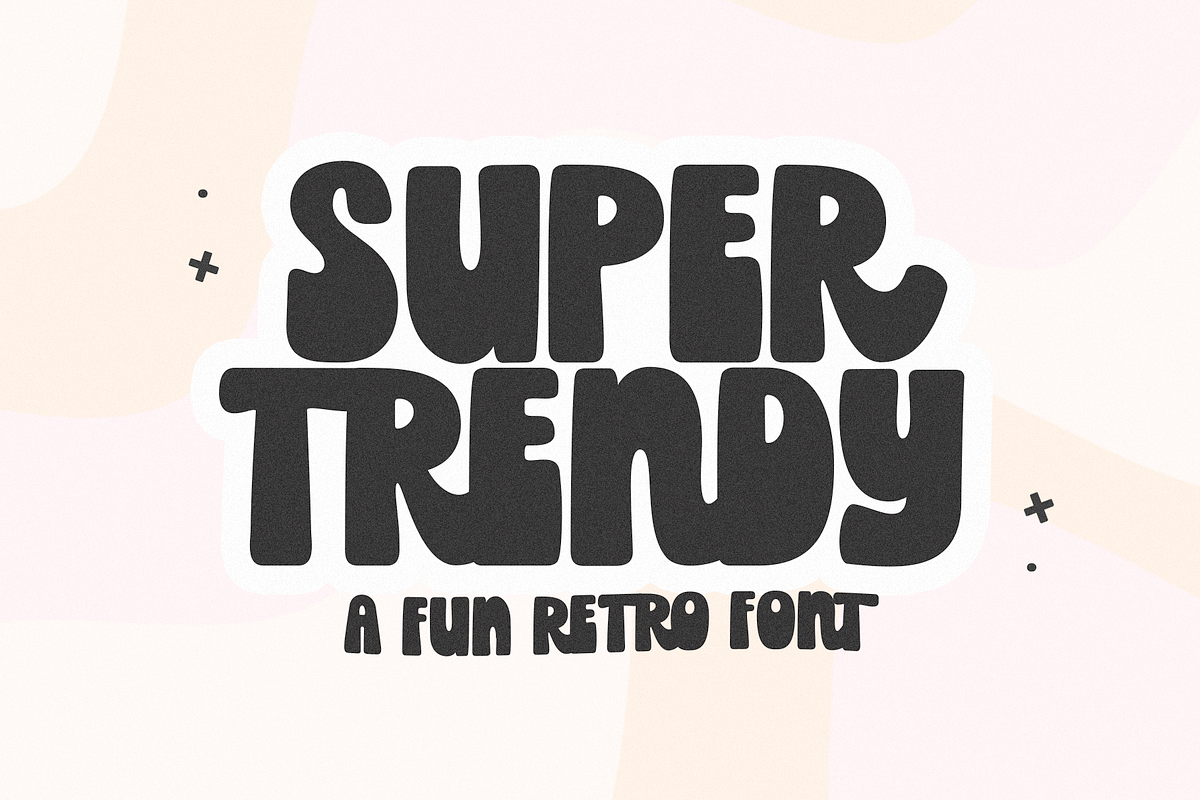
Step into the world of bold design with Super Trendy Retro Font Free Download — a typeface that channels the spirit of the 70s and 80s with its vibrant, eye-catching style. With strong, rounded letterforms and playful details, this font is perfect for retro branding, vintage posters, t-shirt designs, music covers, and any project that calls for nostalgic flair.
Super Trendy offers a timeless look with a contemporary twist, combining retro vibes with modern usability. It includes uppercase and lowercase letters, numbers, punctuation, and multilingual support — making it ideal for a wide variety of creative projects.